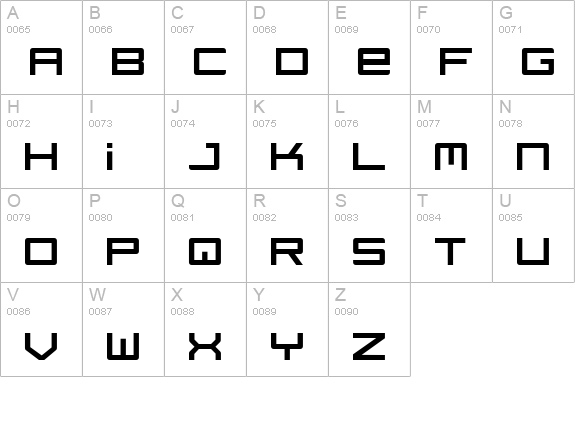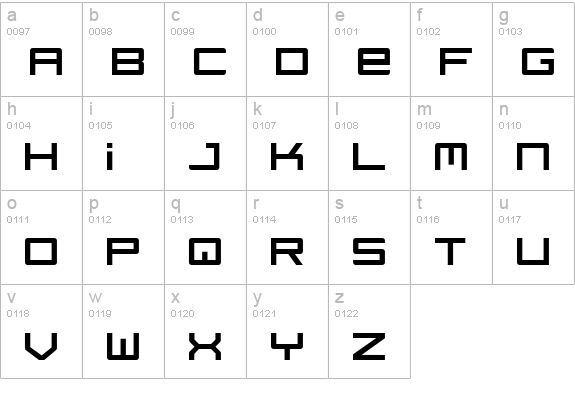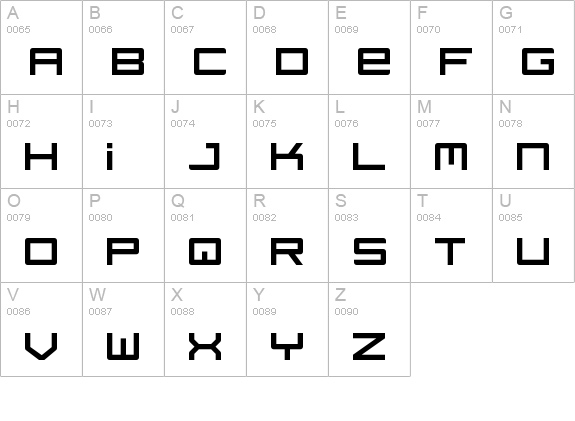
regata Font Details
Regata Font is a stunning display typeface that exudes elegance and sophistication. With its sleek and modern design, it is perfect for a wide range of creative projects such as logos, branding, packaging, posters, and more. Its clean lines and balanced proportions give it a timeless appeal that is sure to capture attention. What sets Regata Font apart is its versatility and adaptability. Whether used for a bold headline or as a subtle accent, this font delivers a confident and polished look. Its distinct letterforms, with their unique curves and angles, make each character stand out, adding a touch of individuality to any design. One of the best features of Regata Font is that it is available for free. You can easily download it from FontsMarket.com, a trusted source for high-quality fonts. This means that you can start using this remarkable typeface in your projects right away without any additional cost. It is a fantastic opportunity to elevate your designs with a professional and eye-catching font. Regata Font is designed with meticulous attention to detail, ensuring that each character is legible and visually appealing. Its wide range of weights and styles offers endless possibilities for creative exploration, allowing you to experiment and find the perfect fit for your project. Whether you are a graphic designer, a branding specialist, or simply someone who appreciates beautiful typography, Regata Font is a must-have in your font collection. Its sleek and modern design, combined with its availability as a free download, makes it an excellent choice for any creative endeavor. So why wait? Head over to FontsMarket.com and get your hands on this exceptional font today.